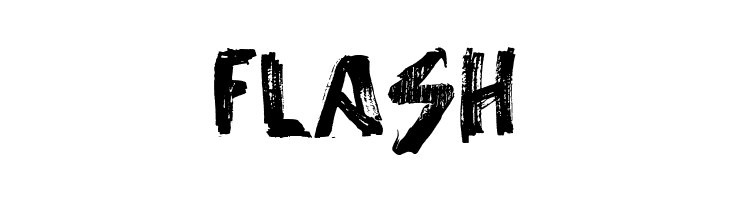
British Shorthair Font
- Font: British Shorthair
A Gothic-style font with intricate, angular strokes and elaborate serifs.
A bold and ornate blackletter font with intricate details and historical elegance.
A bold, rugged font with a wild, brush-stroke appearance.
An elegant serif font with swash elements and flowing curves.
A classic, calligraphic font with elegant serifs and ornate lowercase letters.
A bold, dynamic script font with elegant, flowing letterforms.
A modern serif font with sharp serifs and clean lines, offering elegance and readability.
Popular choices include GregorianFLF, Kingthings Italique, vtks animal 2, Gondola SD - Swash and Gondola SD — fonts known for their balance between modern and timeless. They look great on web pages, social content, and packaging, bringing a clean yet expressive feel.